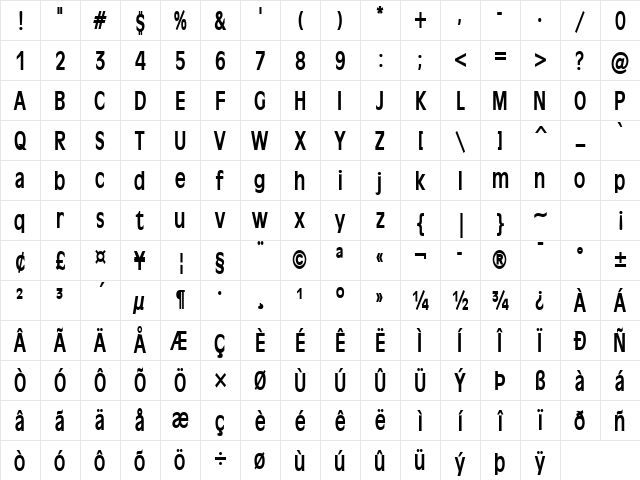
Complete Antiqua 101 Thin Bold glyph index. Displaying only characters natively supported by Antiqua 101 Thin Bold font.
Antiqua 101 Thin is a composed and adaptable typeface that performs quietly and consistently across a wide range of design contexts. Its bold stroke weight gives it real presence on the page.